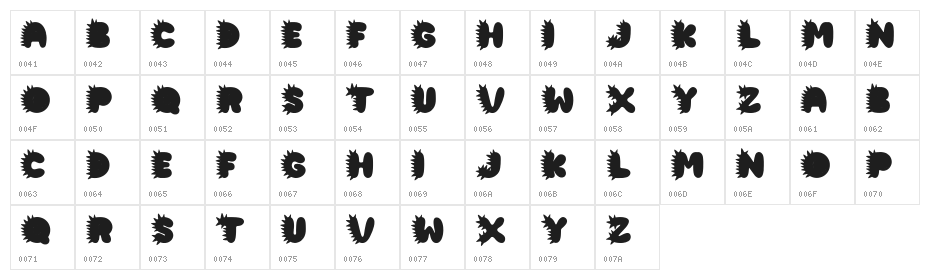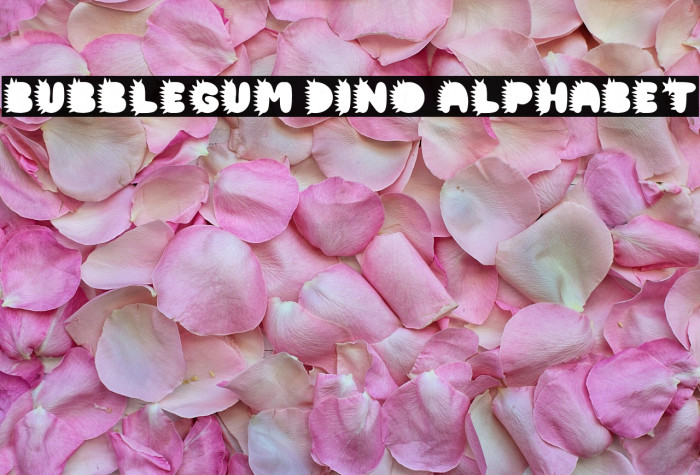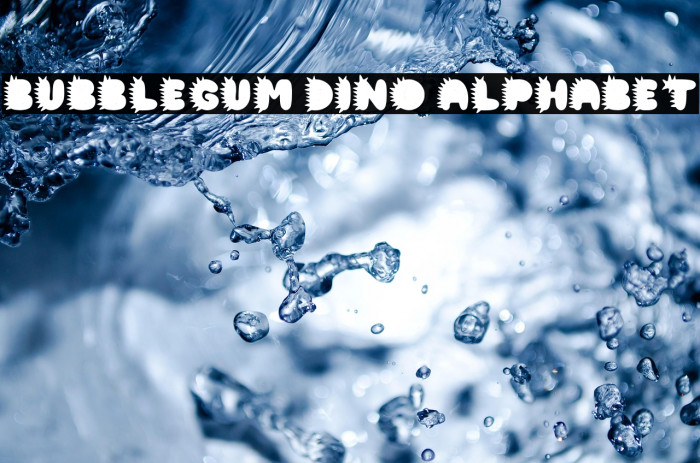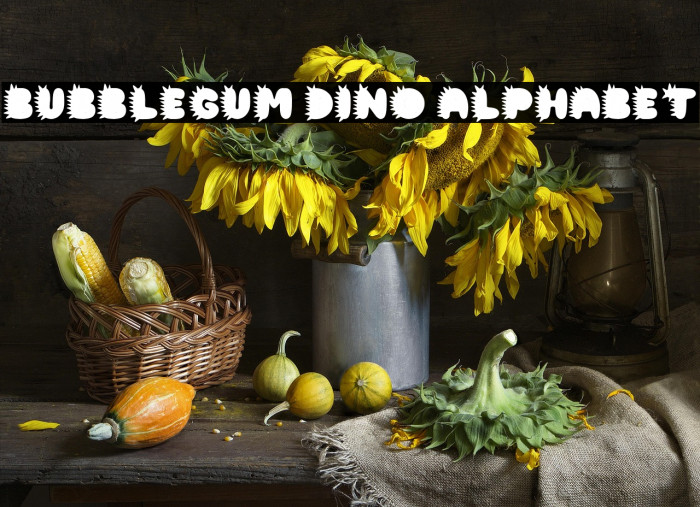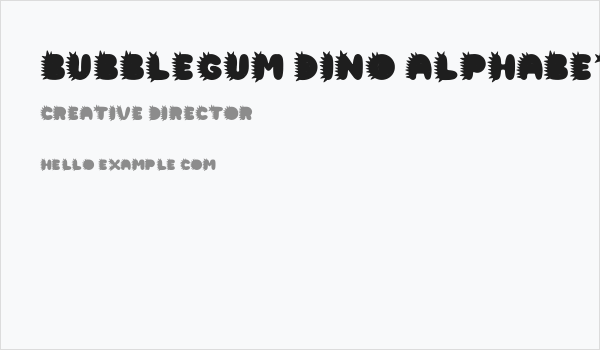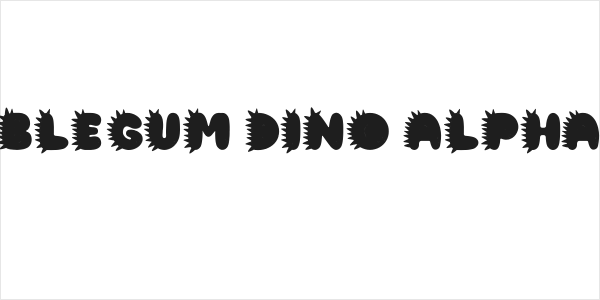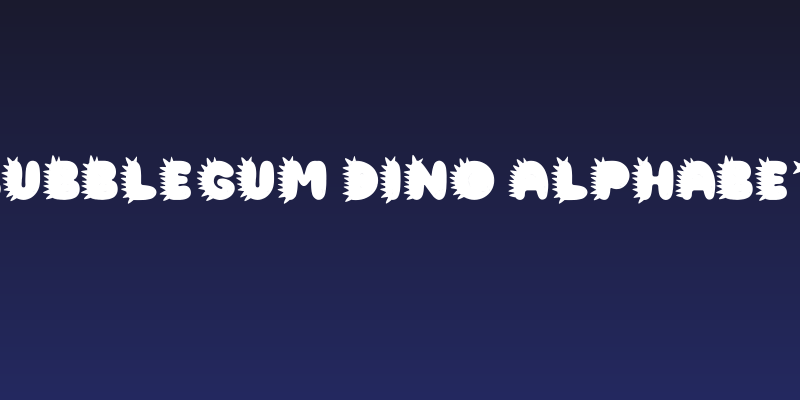
BubbleGum Dino Alphabet Font
BubbleGum Dino Alphabet Description
This playful and bold font features a unique design inspired by dinosaur shapes, with each letter adorned with spikes and curves reminiscent of prehistoric creatures. The characters are rounded and chunky, giving a fun and whimsical feel. The font is highly decorative, making it ideal for projects that require a touch of creativity and imagination. Its distinct style captures attention and adds a lively, adventurous vibe to any text.
| Proposed Projects | Ideal for children's books, themed party invitations, playful branding, and educational materials. |